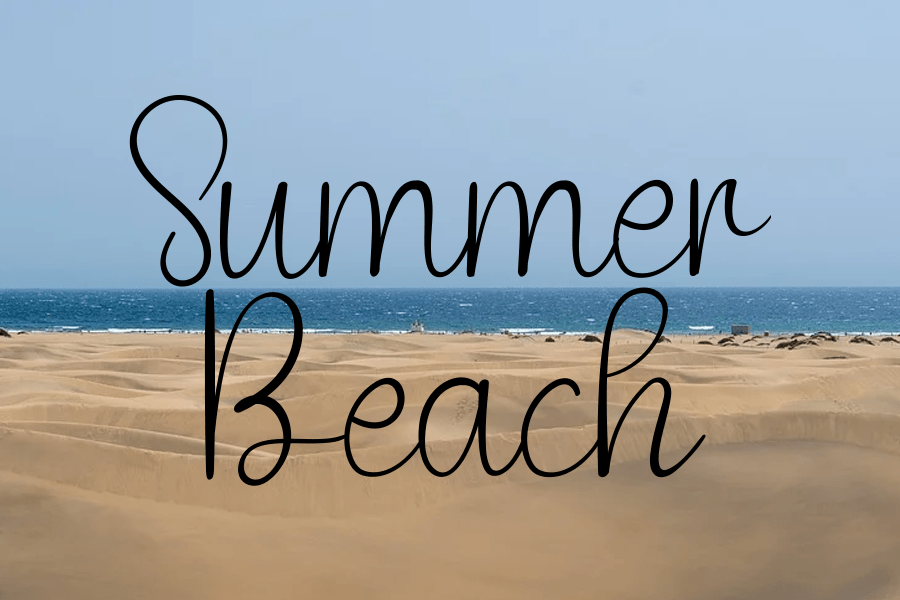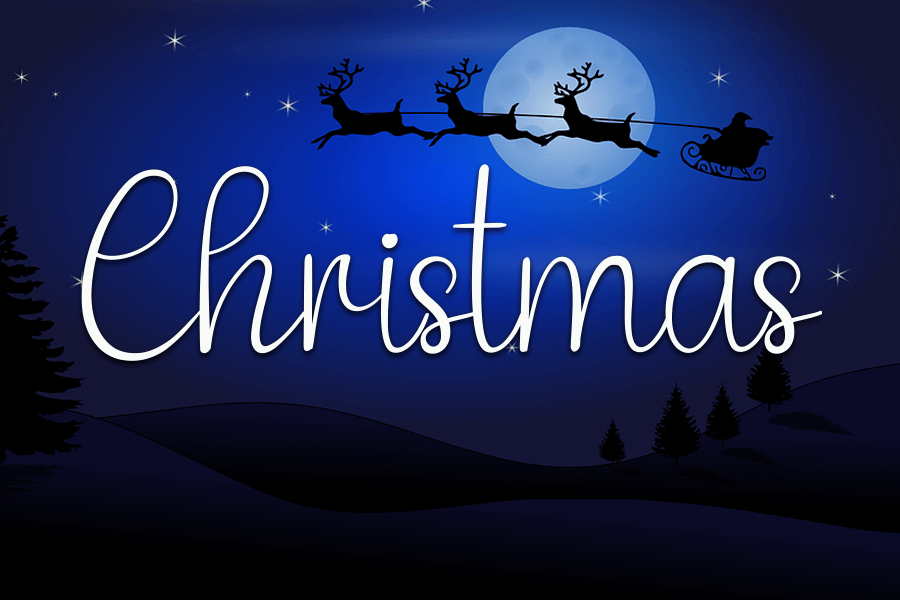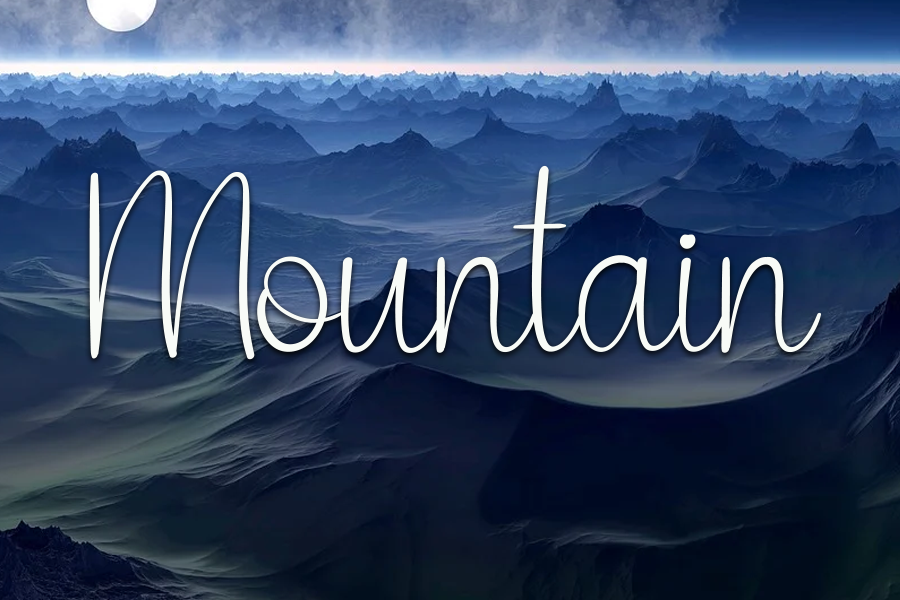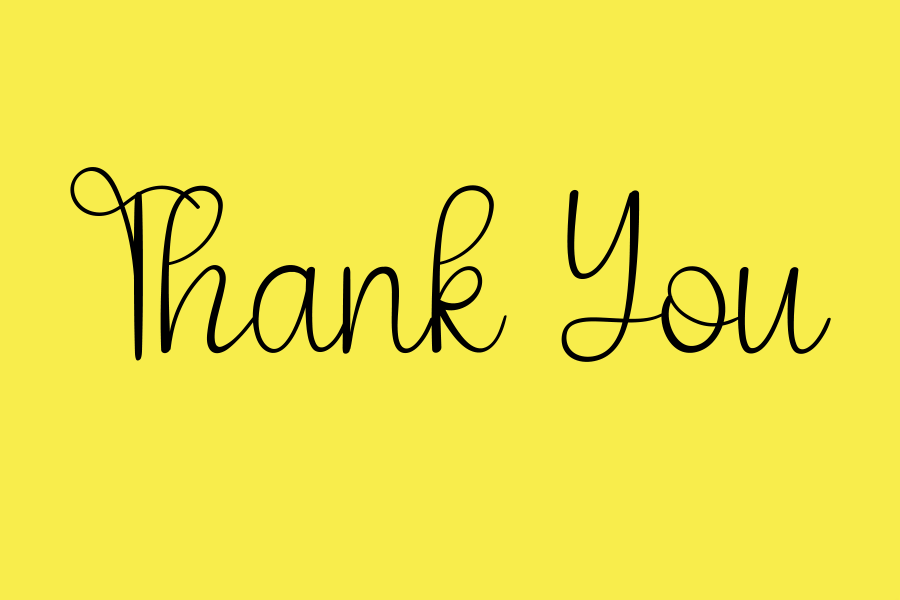
Saturday Script Font
This is a delicate handwritten font that has a modern yet whimsical style. It will undoubtedly immerse your designs into a magical world.
It’s a simple handwriting perfect for weddings, wall hangings, decorations, products and more